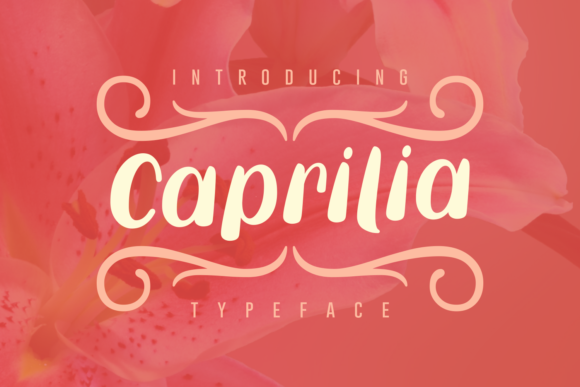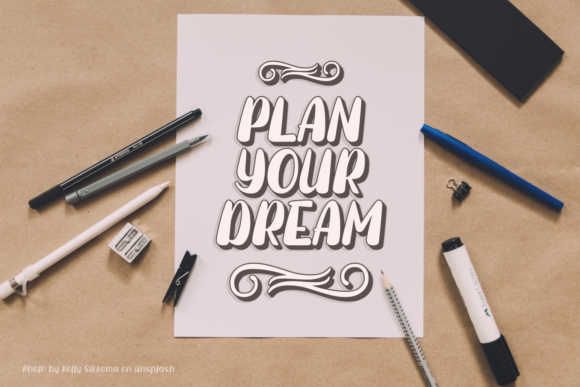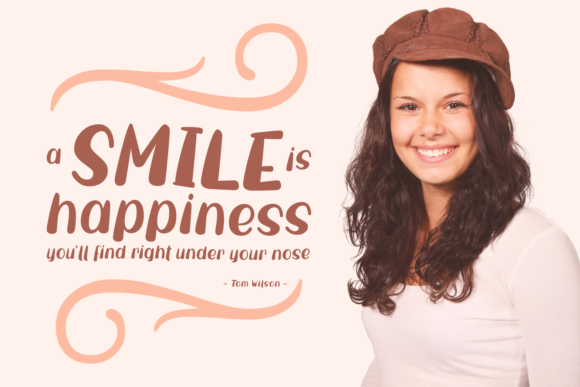
Caprilia Font
About Caprilia Font
The Caprilia is a natural handwritten typeface. It includes bold letters which will add a striking and unique touch to your designs.